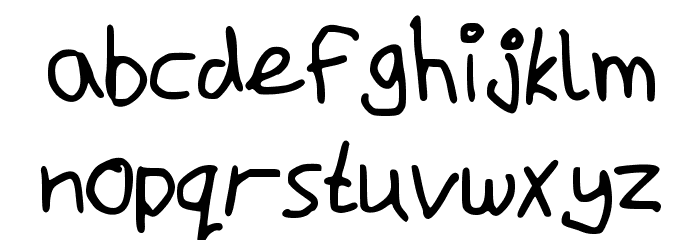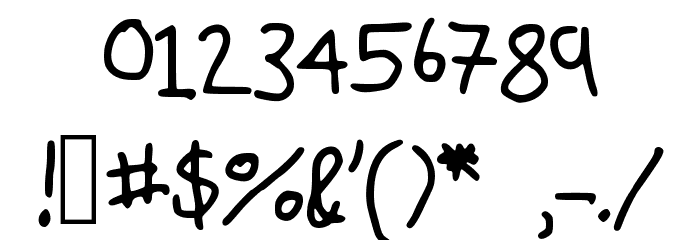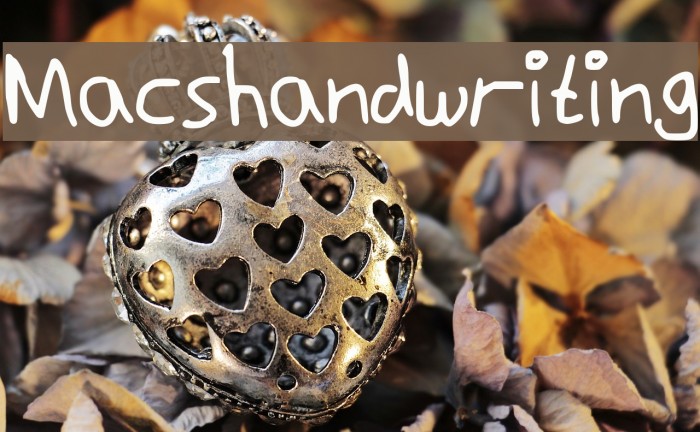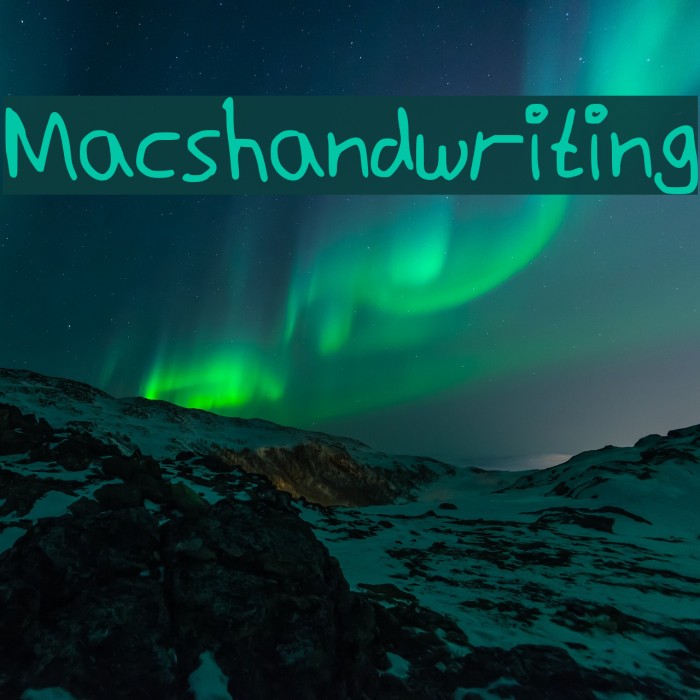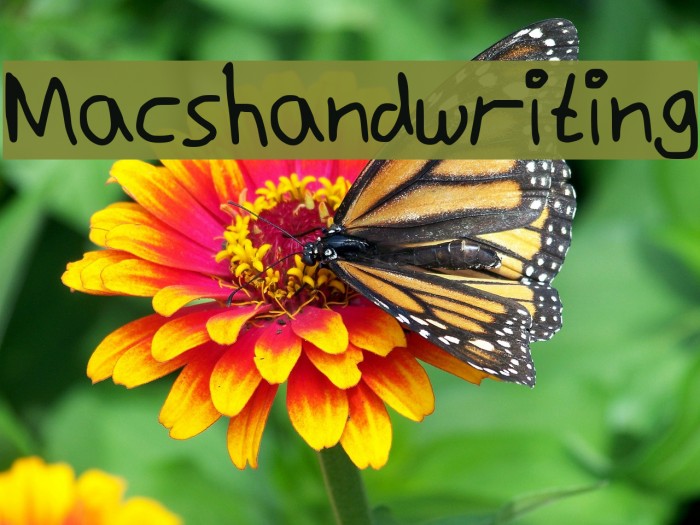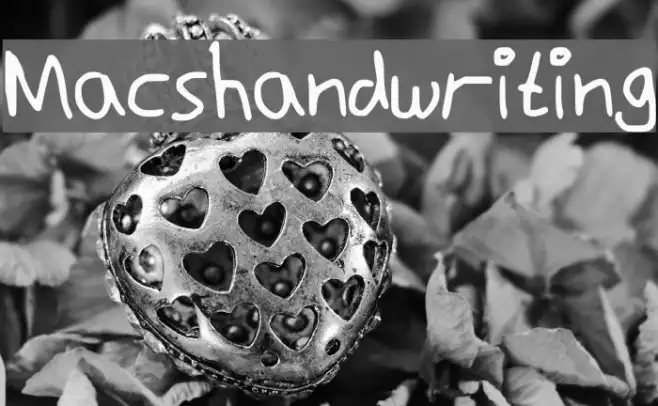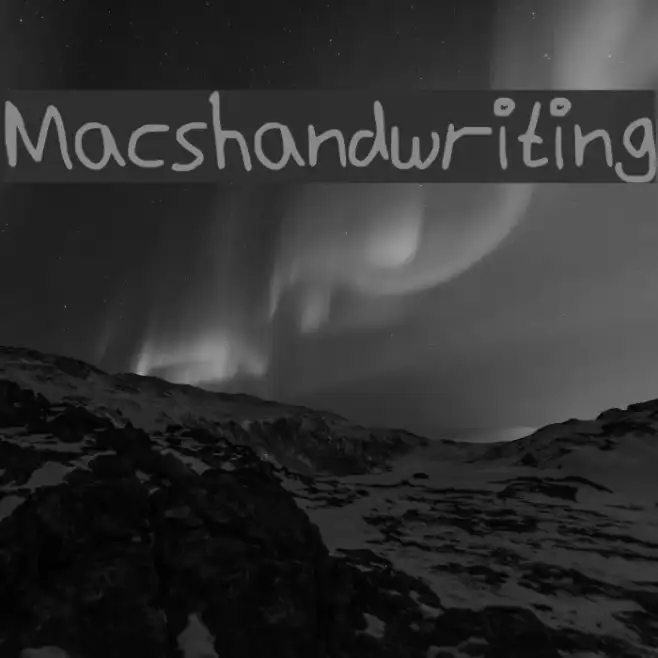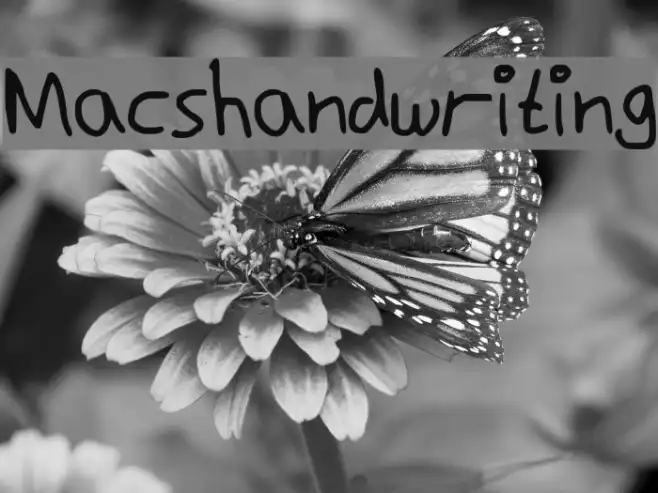
Macshandwriting Font
This font exudes a casual and personal touch, reminiscent of authentic handwriting. The characters are slightly irregular, adding to its charm and making it feel approachable and friendly. The strokes are consistent in thickness, providing a uniform appearance while maintaining a handwritten feel. The uppercase letters are bold and prominent, while the lowercase letters are more relaxed and flowing. Numbers and special characters are crafted with the same playful style, ensuring a cohesive look across all text. This font is perfect for projects that require a personal or informal tone, such as greeting cards, invitations, or personal blogs.
A casual, handwritten-style font with consistent strokes and a friendly appearance.
- Font: Macshandwriting
- Weight: Medium
- Proposed Projects: Ideal for greeting cards, personal blogs, invitations, and any project needing a personal touch.
- Category: Handwritten
- Overall Style: Casual
- Use Case: Headlines, Informal text, Personal projects